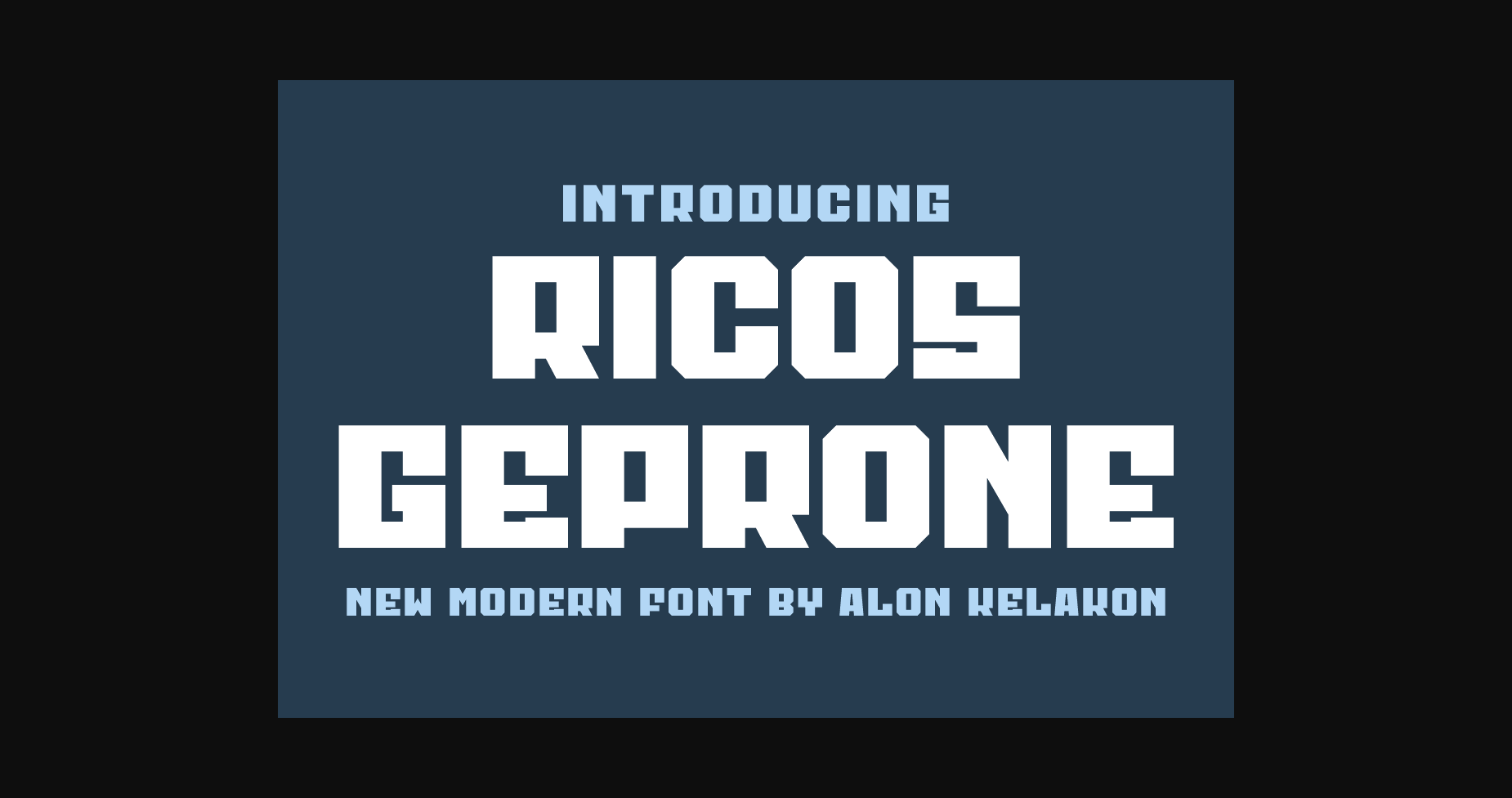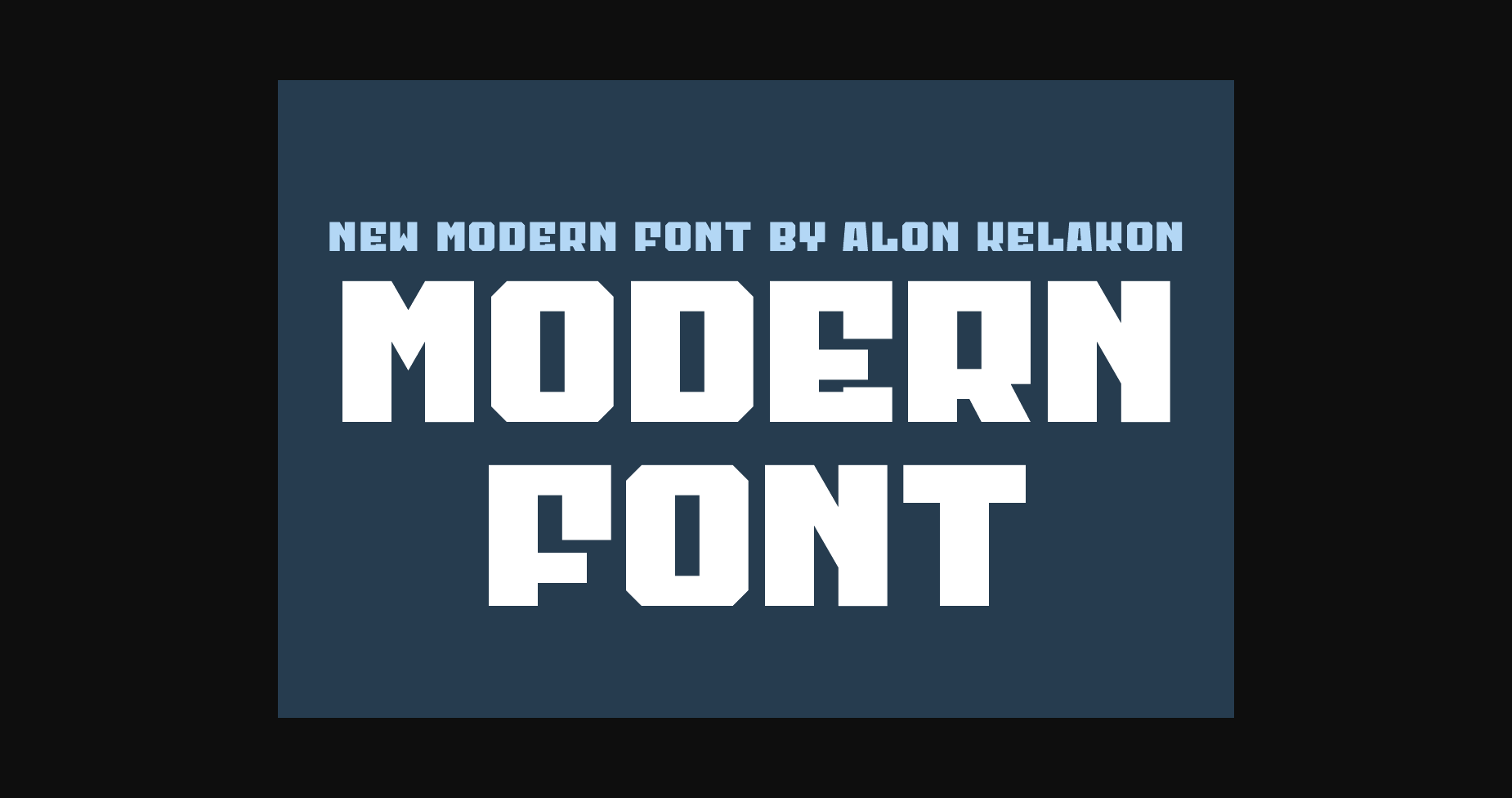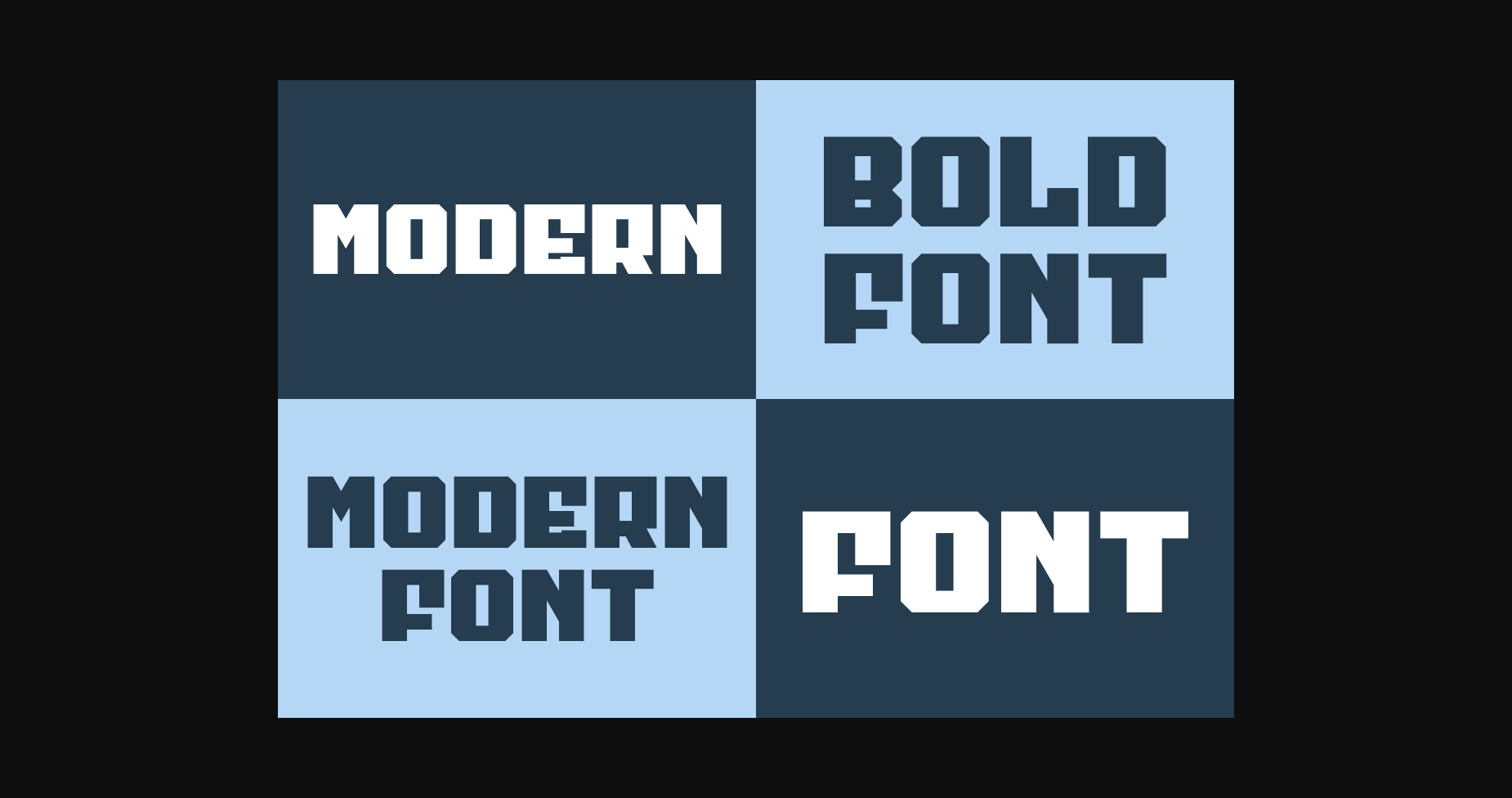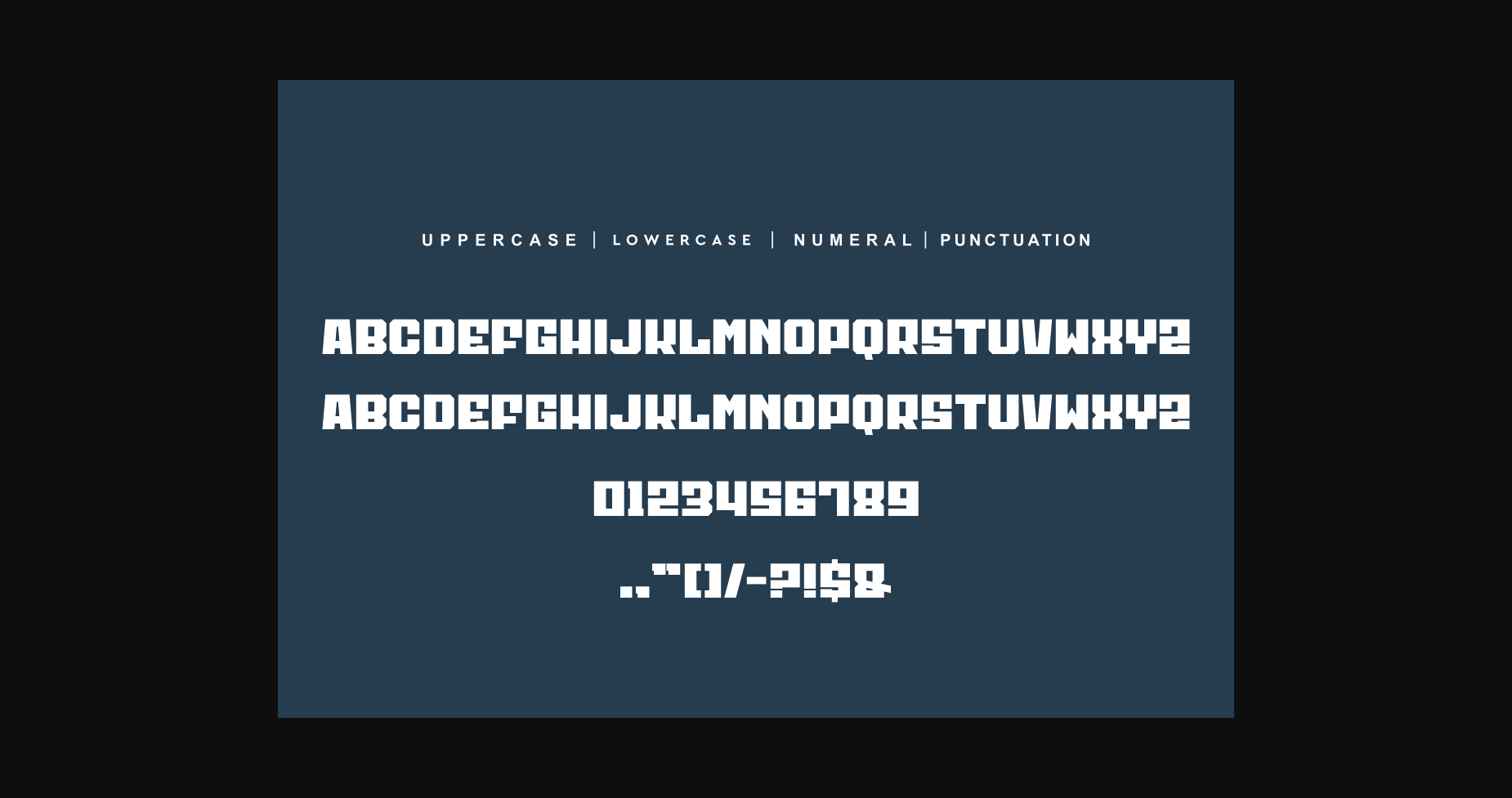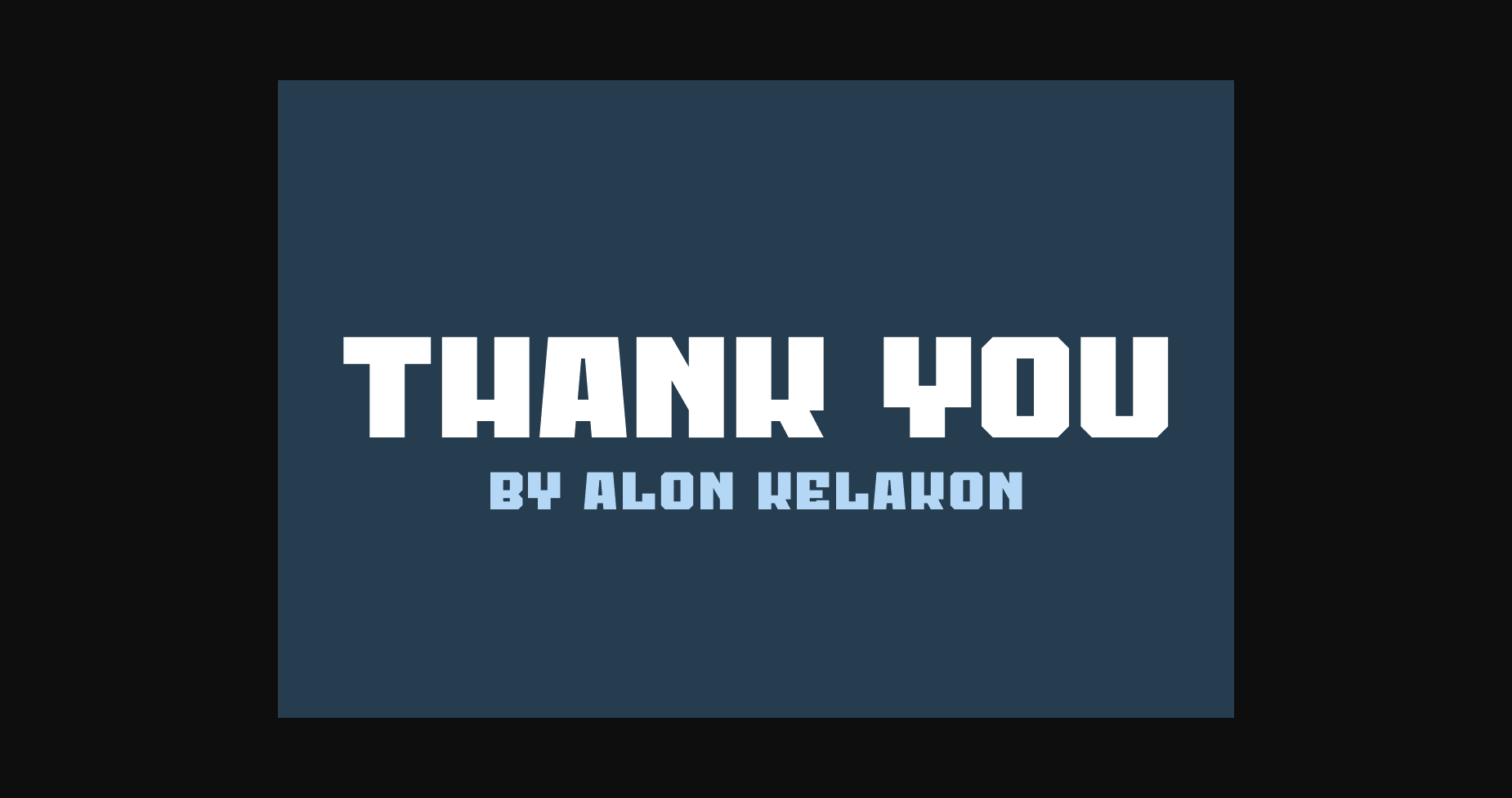
Ricos Geprone Font
About Ricos Geprone Font
Ricos Geprone Font is unique and modern Sans Serif font. Ready to use for your design like labeling, clothing, movie scenes, poster, movie title, gigs, album covers, logos, and much more.